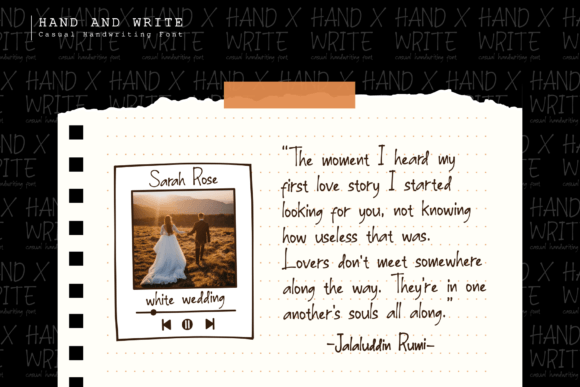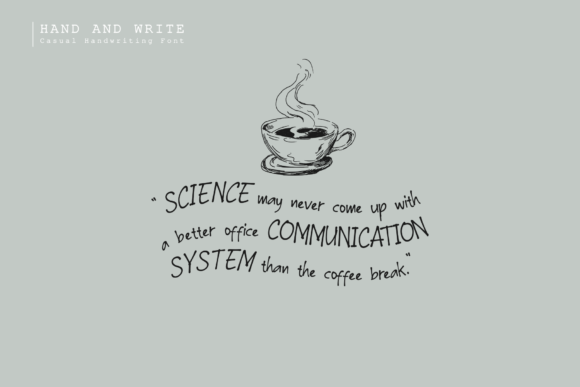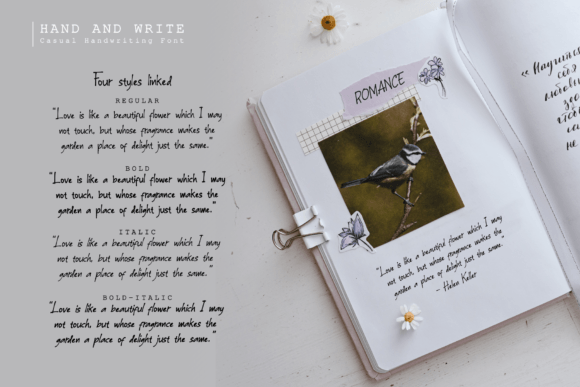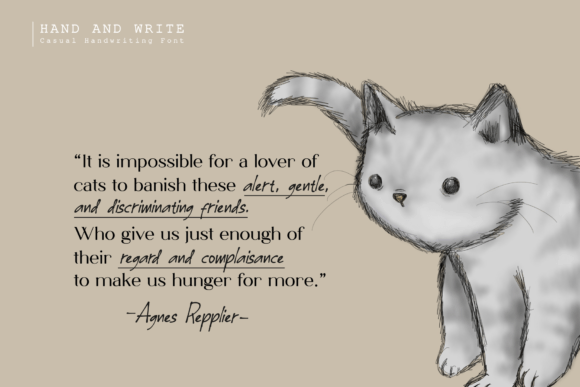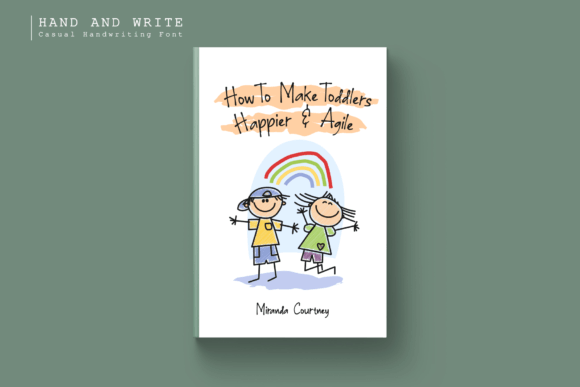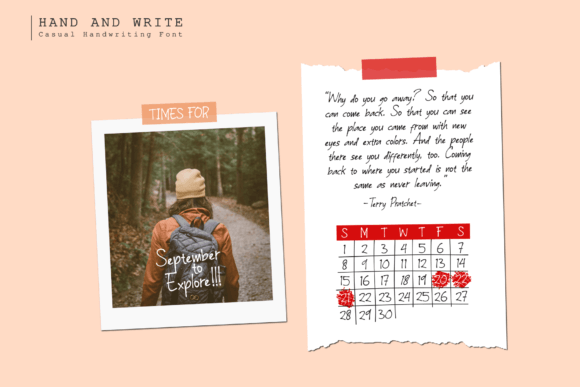
Introduction to Hand and Write Font
As a designer, have you ever stared at a blank page, searching for the perfect font to bring your creative project to life? The struggle is real, but we’ve got just the solution for you. Imagine adding a touch of whimsy and personality to your designs with a font that’s as unique as it is charming. Enter the Hand and Write Font, a free download that’s about to become your new best friend.
This high-quality, handwritten font is perfect for designers who want to add a bit of personality to their work. With its transparent background and effortless feel, it’s a design resource that’s sure to brighten up any project. Whether you’re working on a marketing campaign, a social media graphic, or a personal art piece, the Hand and Write Font is the perfect addition to take your designs to the next level.
Key Features of Hand and Write Font
- Unique, handwritten style perfect for creative projects and designs that require a personal touch.
- Perfect for use in invitations, cards, posters, and other creative projects where a handwritten touch is desired.
Honest Review: Hand and Write Font
I recently had the opportunity to work with the Hand and Write Font, and I must say it’s been a game-changer for my creative projects. This font is perfect for designers who want to add a personal touch to their designs.
What works well: ✨ The font is incredibly versatile and can be used for a wide range of designs, from headings to body text. The high quality of the font ensures that it looks great on both screen and print. The transparent background makes it easy to customize and pair with other design elements.
What doesn’t work well: ⚠️ While the font is high quality, it’s not ideal for large blocks of text. The handwriting style can be a bit tricky to read when used extensively. Additionally, the font is a bit on the heavier side, which may not be suitable for all design projects.
Overall impression: I’m thoroughly impressed with the Hand and Write Font. It’s a fantastic design resource that can add a unique touch to any project. If you’re looking for a high-quality font for your creative project, I highly recommend giving it a try. Plus, it’s available for free download, making it an even more attractive option.
- High quality and versatile
Hand and Write Font
Using Hand and Write Font
For the most out of Hand and Write Font, use it for:
- Crafting invitations and event graphics
- Designing personal branding materials
- Creating social media graphics
- Adding a personal touch to presentations and documents
Alternatives to Hand and Write Font
Dancing Script Font
Dancing Script is a beautiful, high-quality font ideal for creative projects that require a touch of elegance. It’s perfect for titles, headings, and other design elements where you want to add a sense of sophistication. Download Dancing Script for free to elevate your design projects.
Compared to Hand and Write Font, Dancing Script is more refined and polished. While Hand and Write Font has a more casual, handwritten feel, Dancing Script is better suited for formal or professional designs. If you’re looking for a font that exudes luxury and sophistication, Dancing Script is an excellent choice.